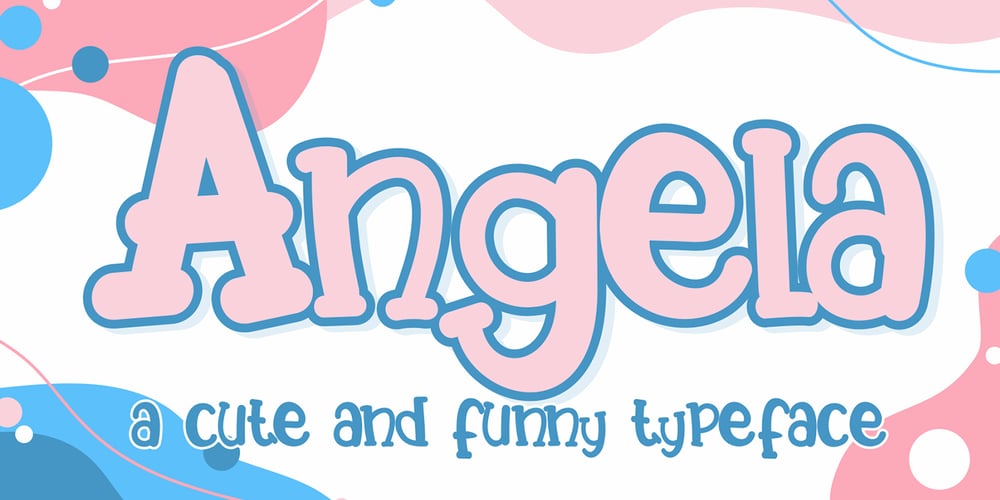
Angela Cute Font Family was designed by Sipanji and published by Sipanji21. Angela Cute contains 1 styles and family package options. Angela is a Cute and charm script font with a relaxed theme, featuring a lovely style. No matter the topic, but this font is awesome for every kids or child project, this font will be an incredibly asset to your fonts’ library, as it has the potential to elevate any creation.